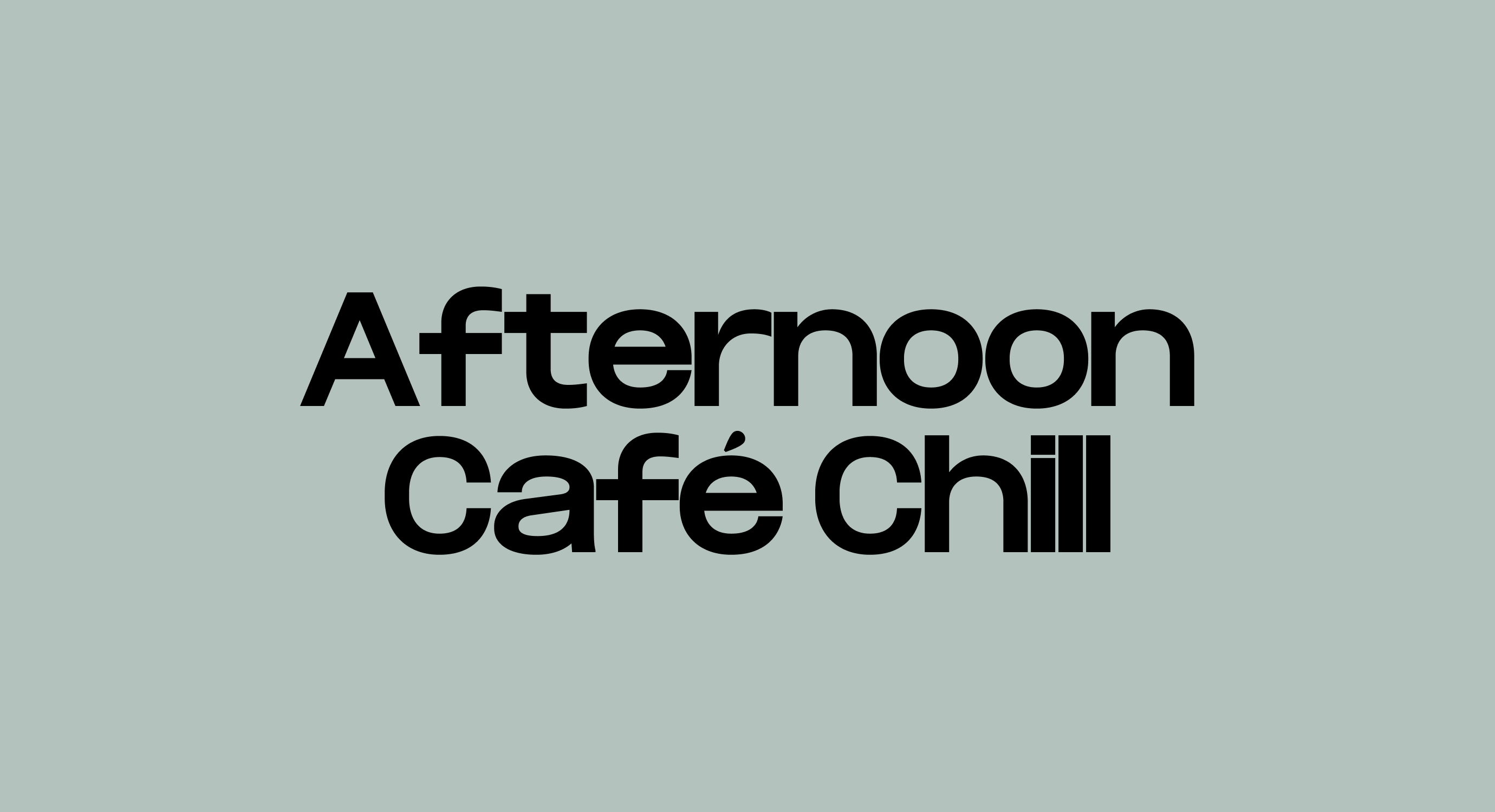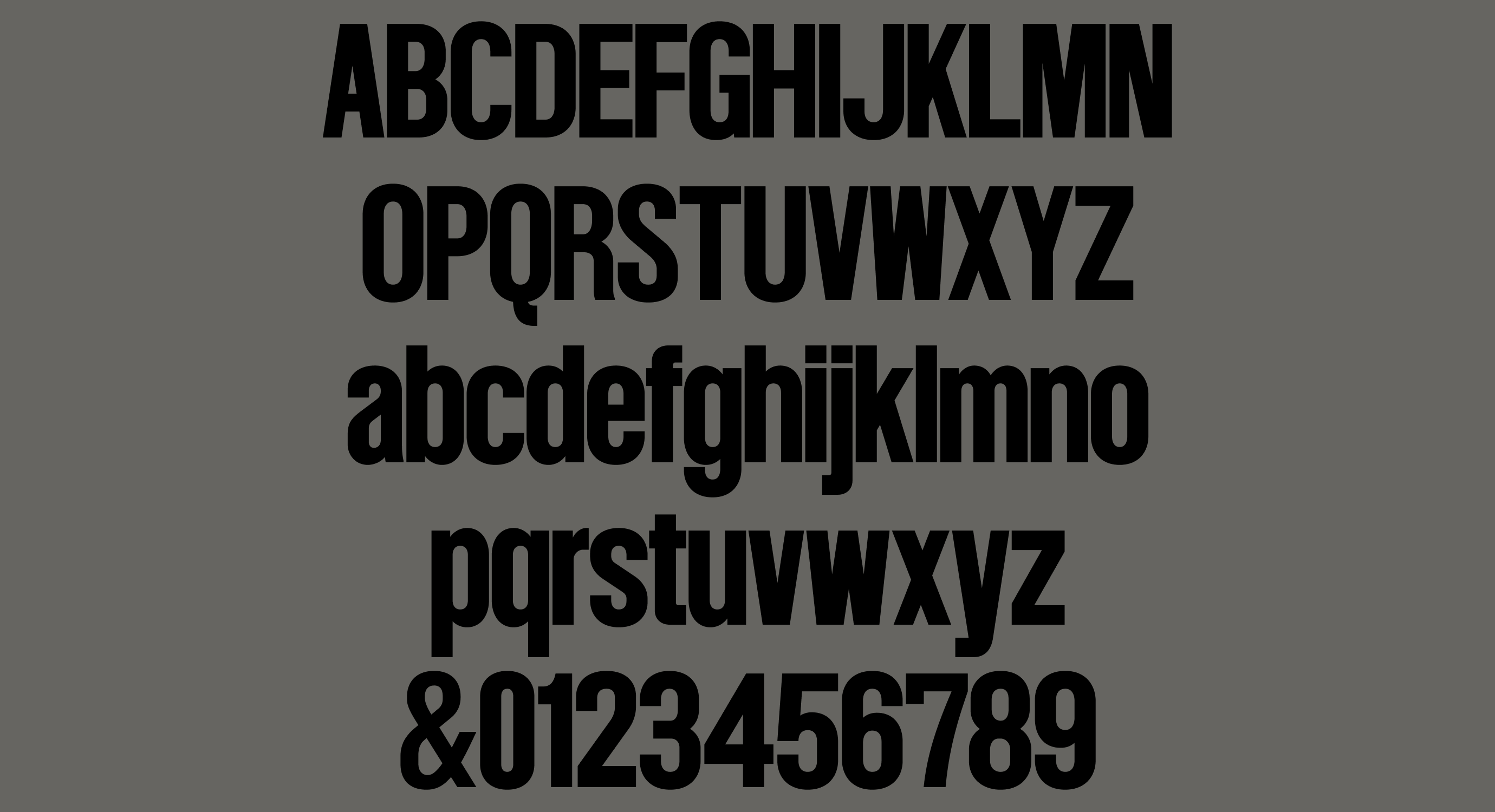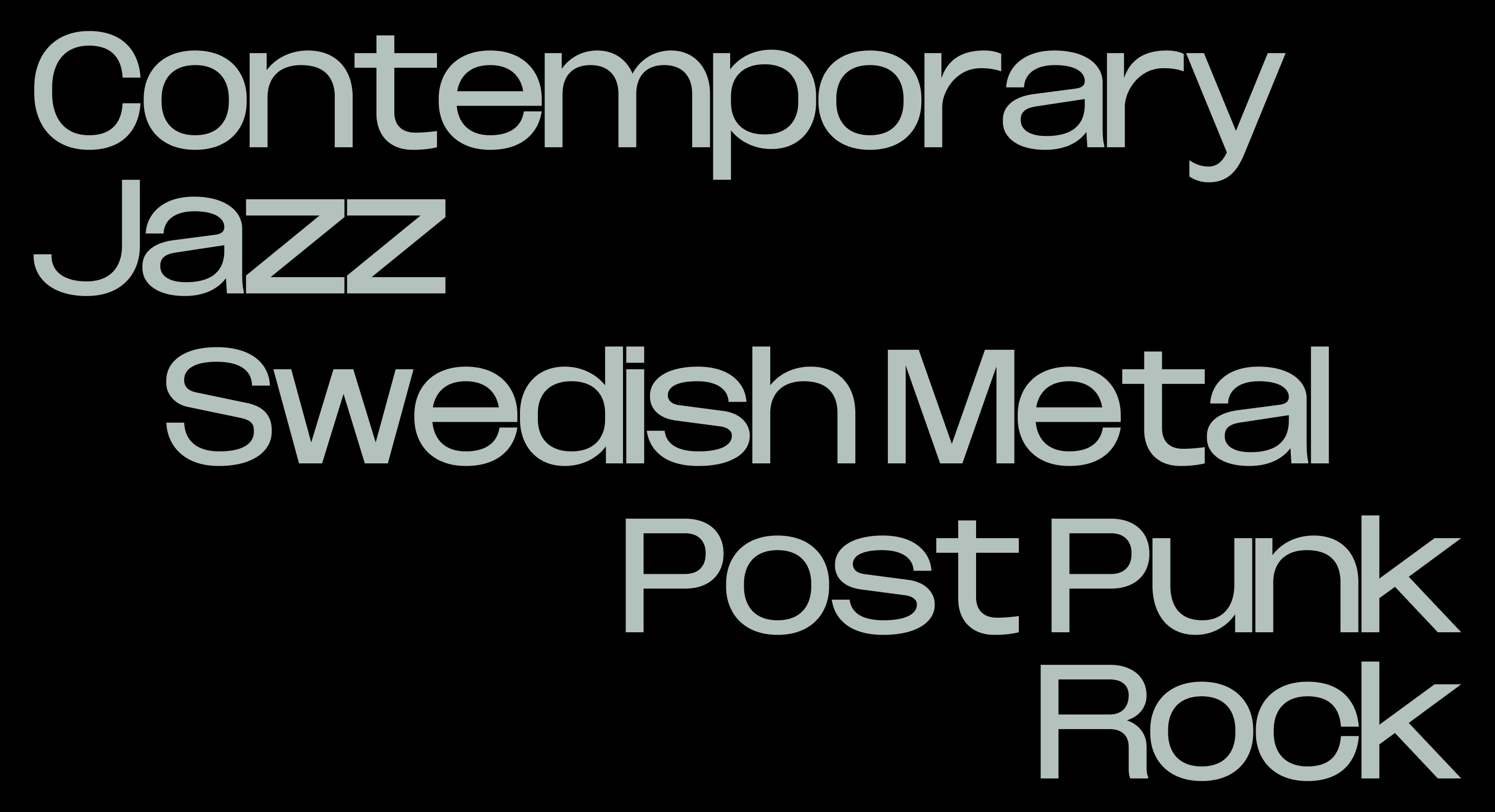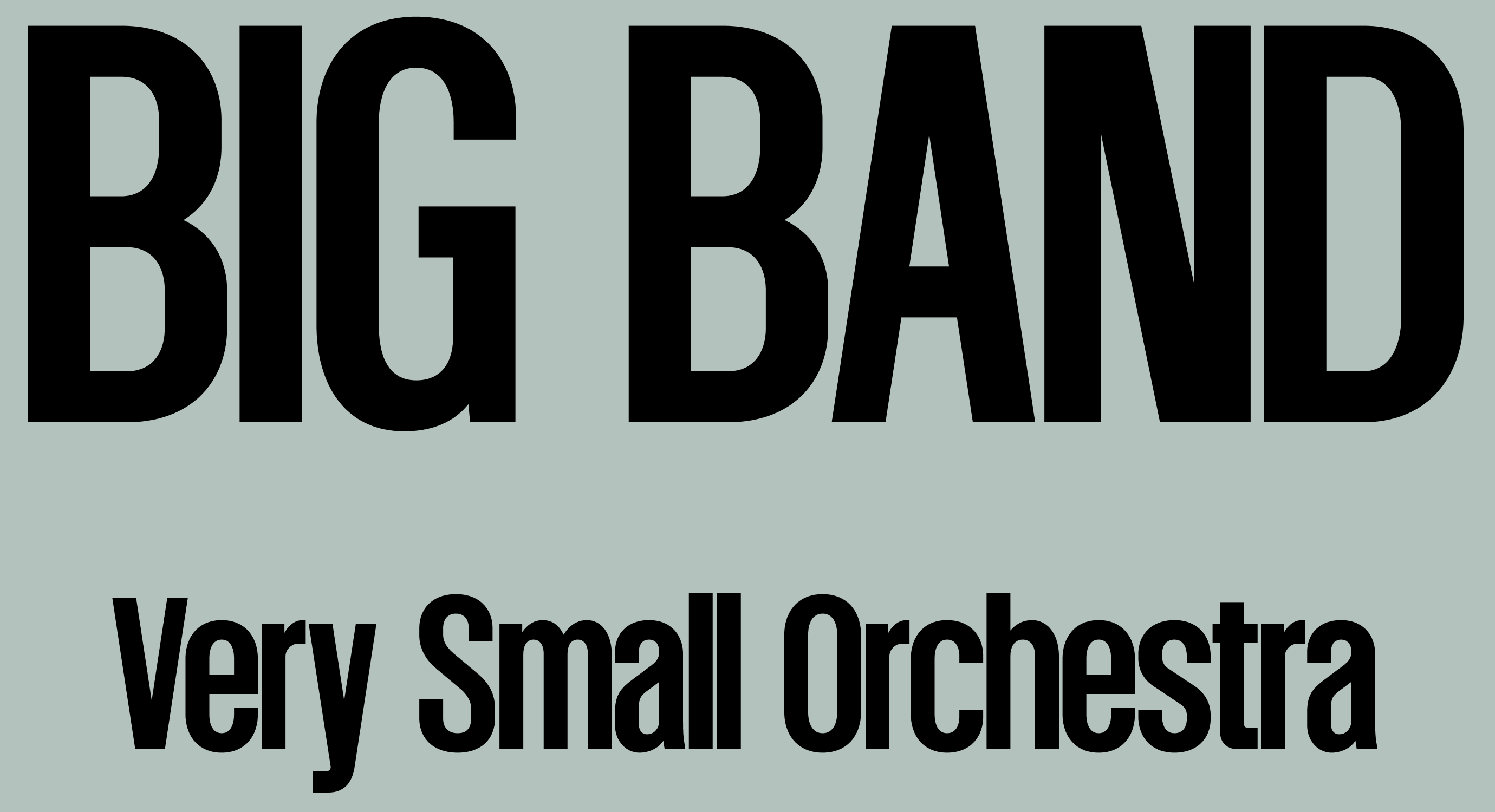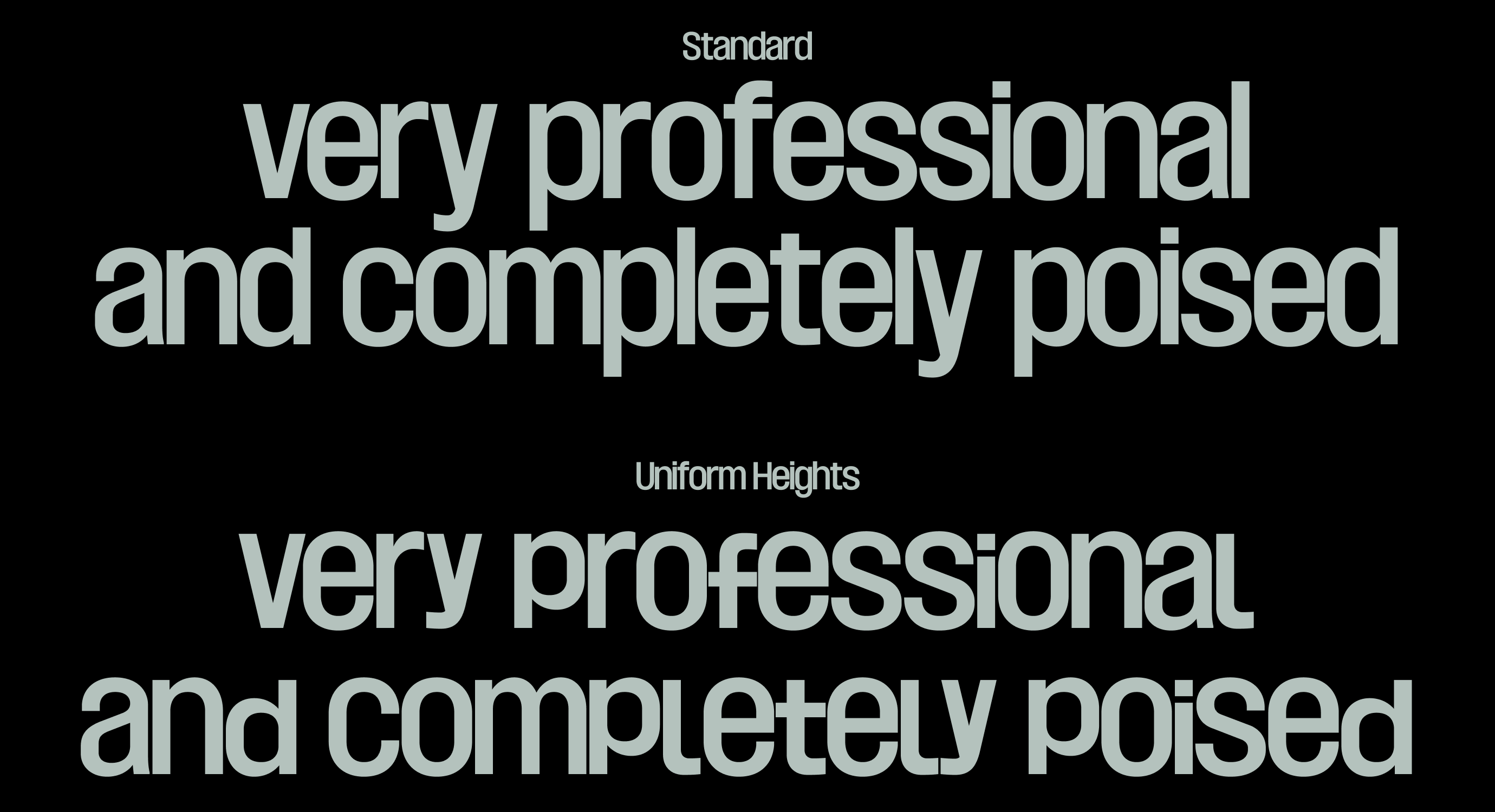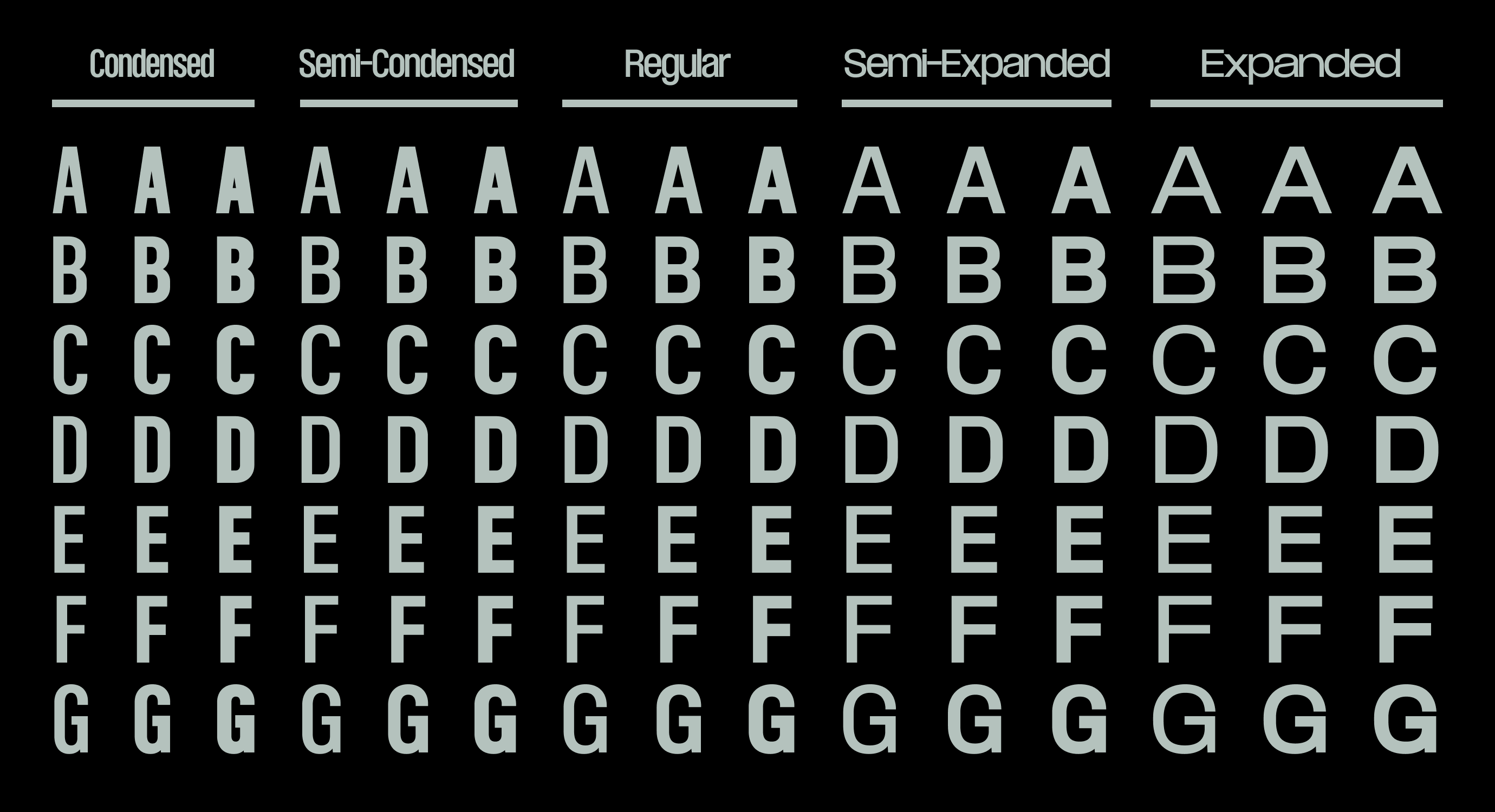
AF Heron
Heron is a man of few words, nothing in excess. Its undeniable presence is felt at both its most structural condensed form and slithering expanded styles. The effort is invisible, the result is not. No matter the style, Heron maintains a dignified and structural calm. The varying weights and widths feel like different instruments playing the same note. Suited to editorial hierarchies, identity systems, and any context where surface composure is non-negotiable.